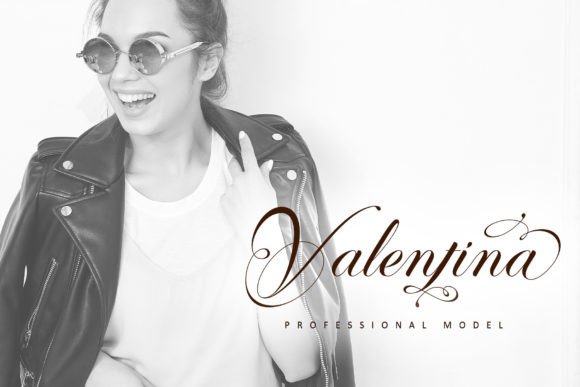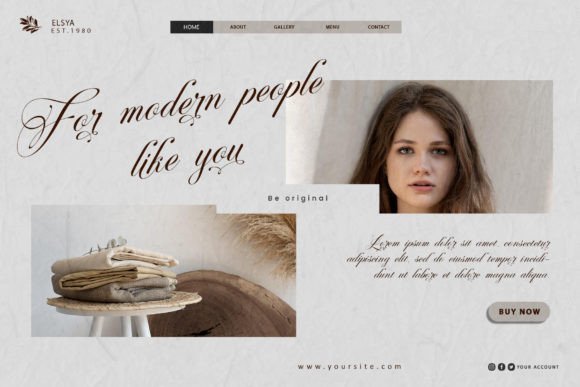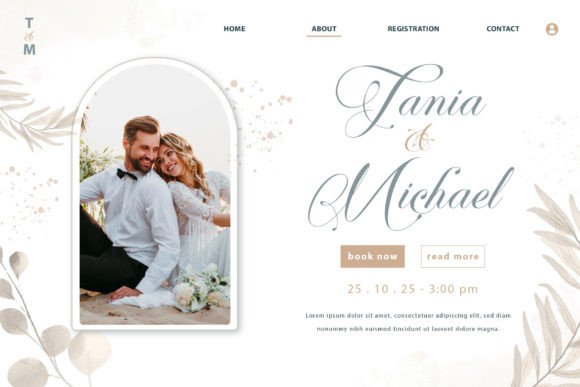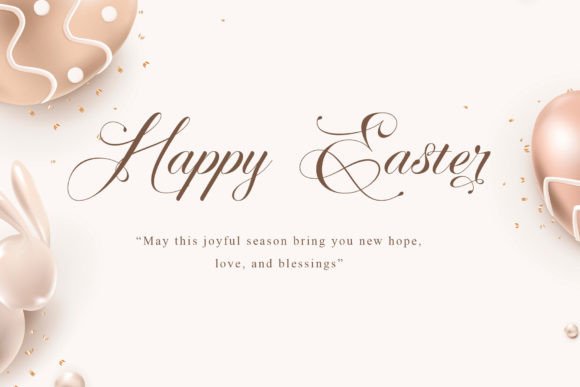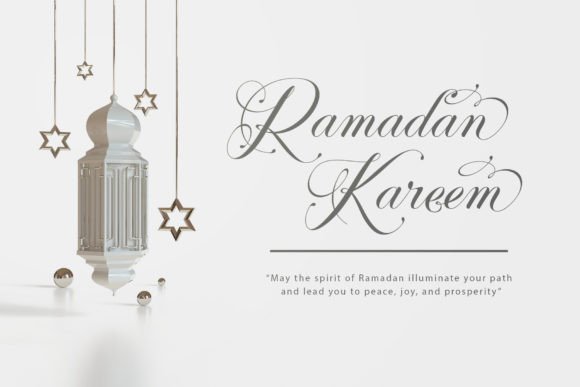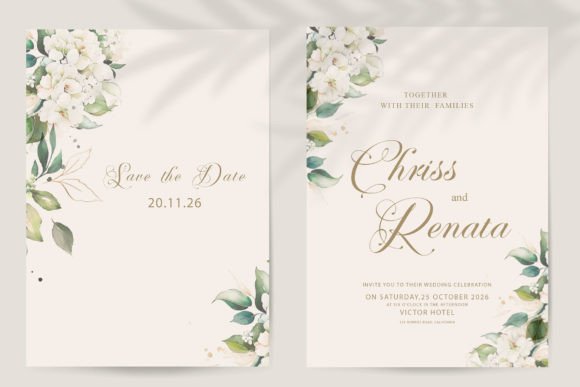
Introduction to Perfecto Calligraphy Font
Discover the allure of “Perfecto Calligraphy,” an exquisite font that embodies the artistry of calligraphy.
With its graceful curves and impeccable strokes, this font exudes elegance and sophistication, perfect for adding a touch of refinement to your designs Whether you’re creating wedding invitations, designing a website, elegant branding, or luxurious packaging, “Perfecto Calligraphy” elevates your projects with its timeless beauty.
Key Features of Perfecto Calligraphy Font
Why Choose Perfecto Calligraphy Font?
Perfecto Calligraphy Font offers exceptional quality and versatility, making it a valuable addition to your design toolkit. Whether you’re creating for personal projects or commercial use, Perfecto Calligraphy Font delivers professional results.